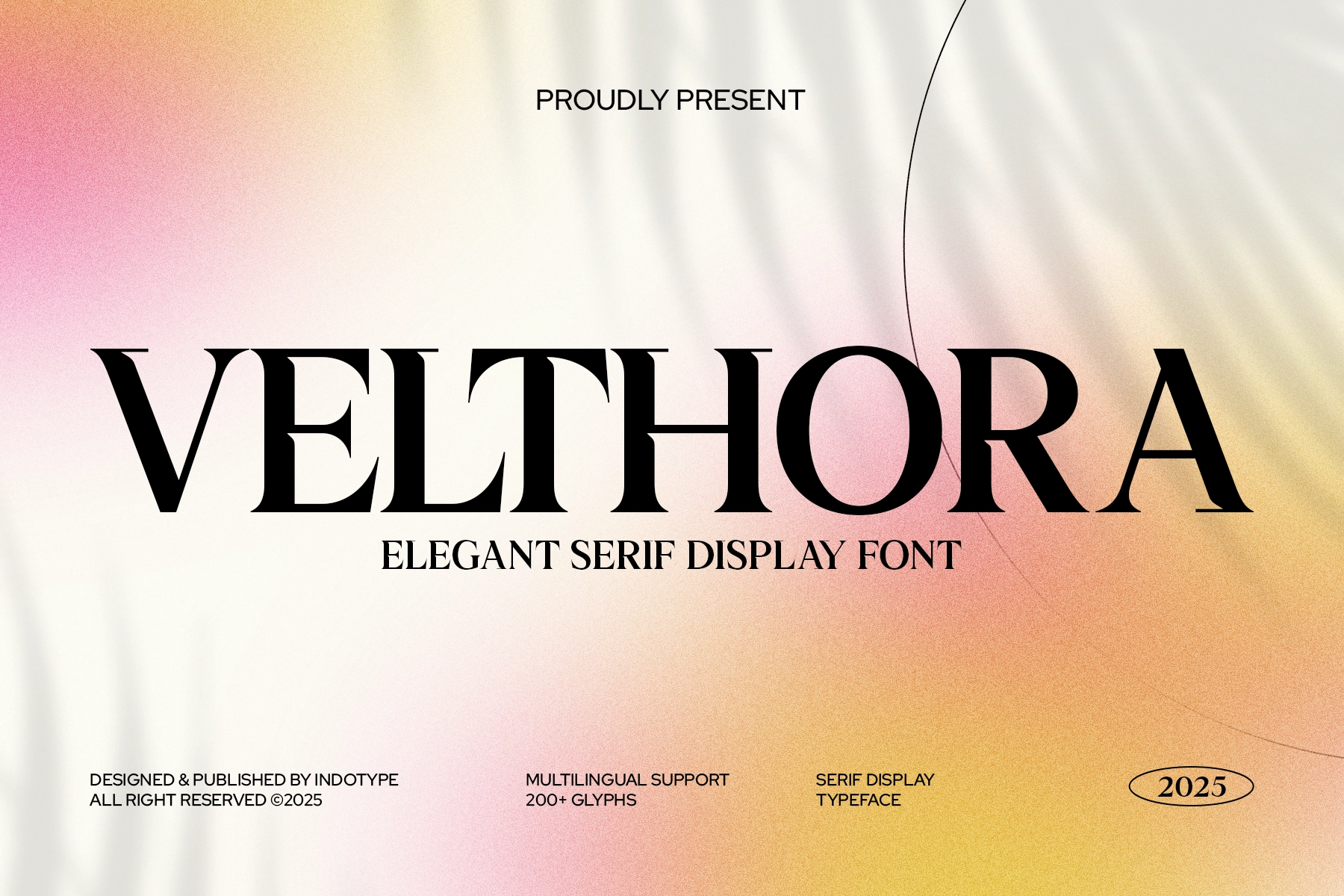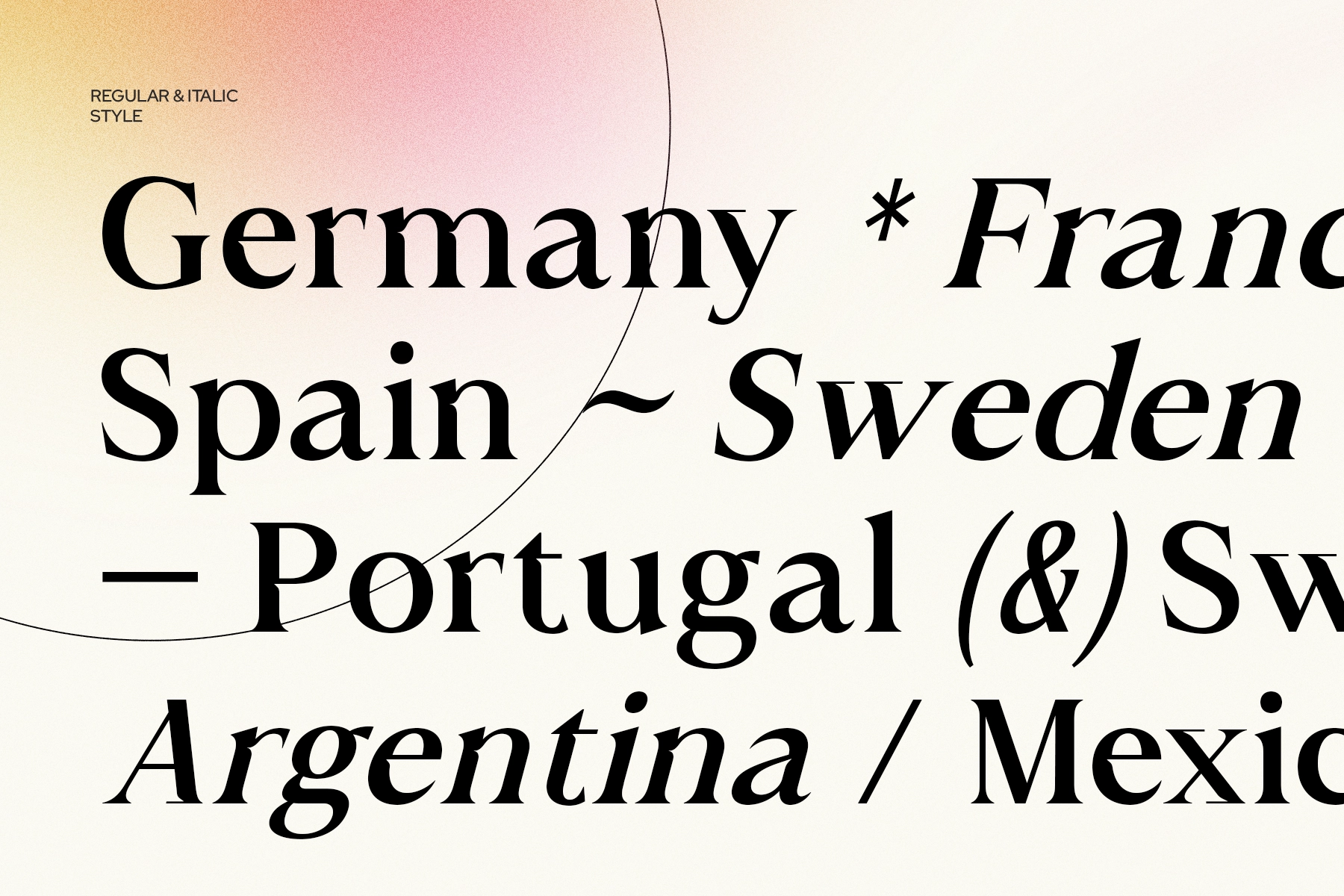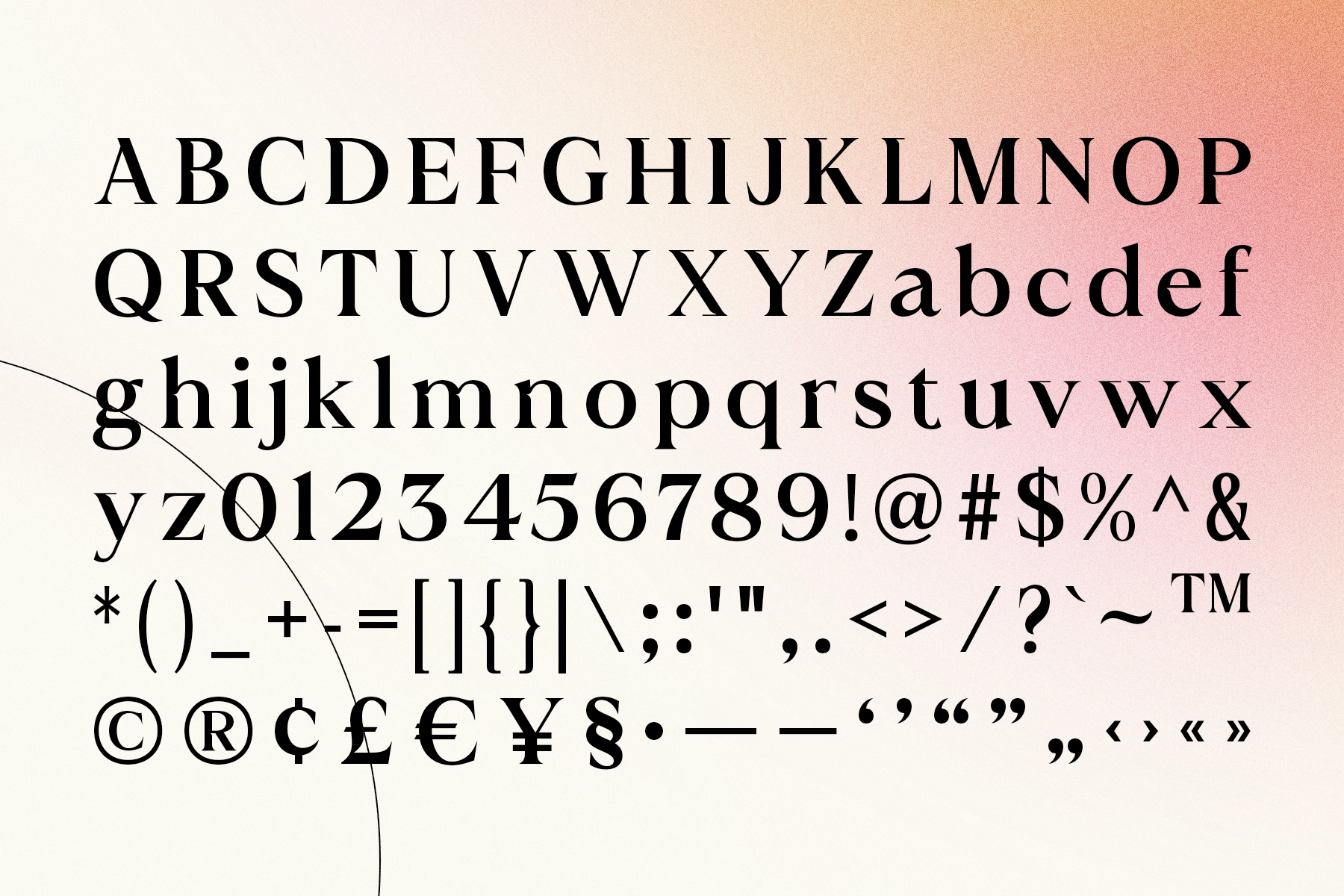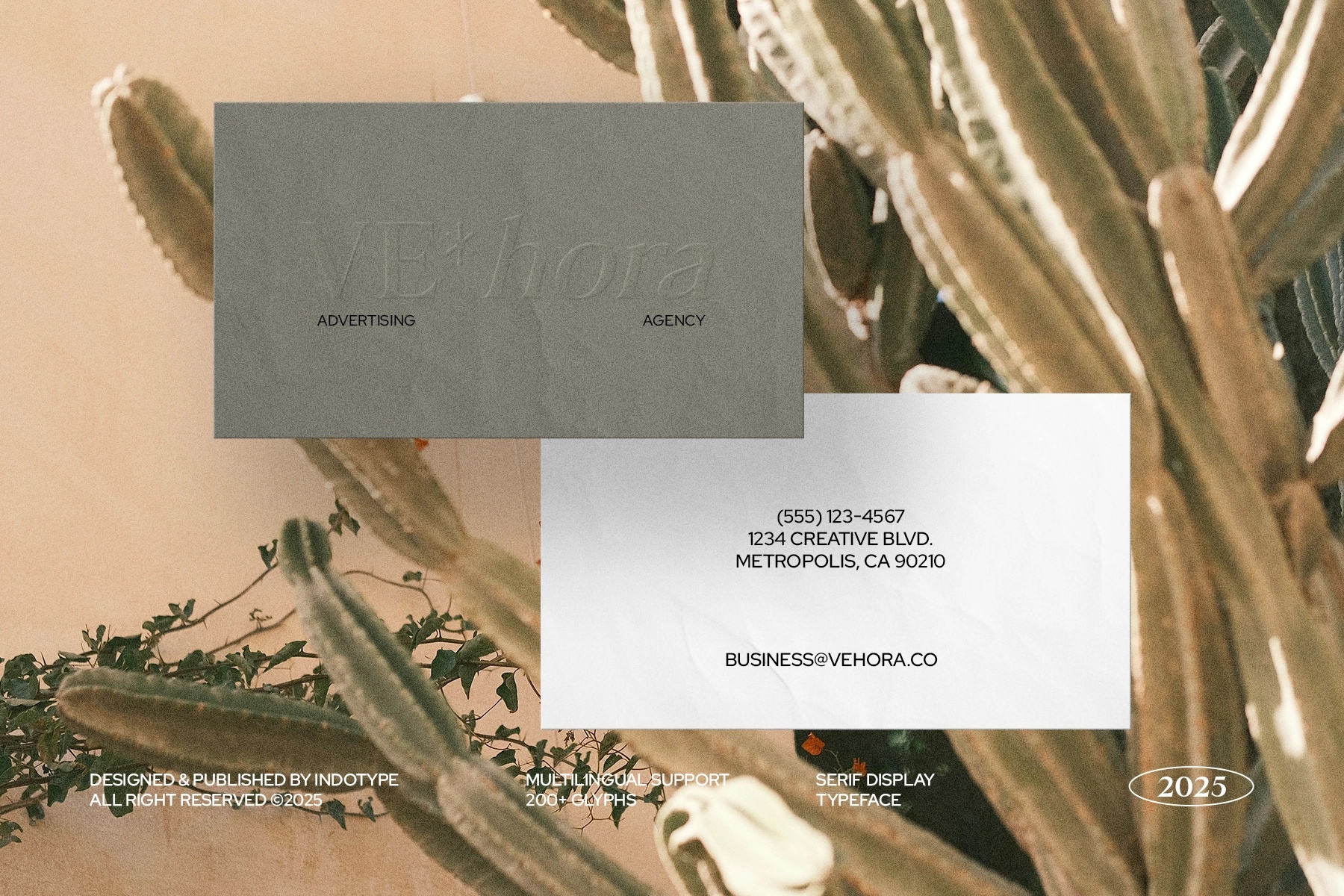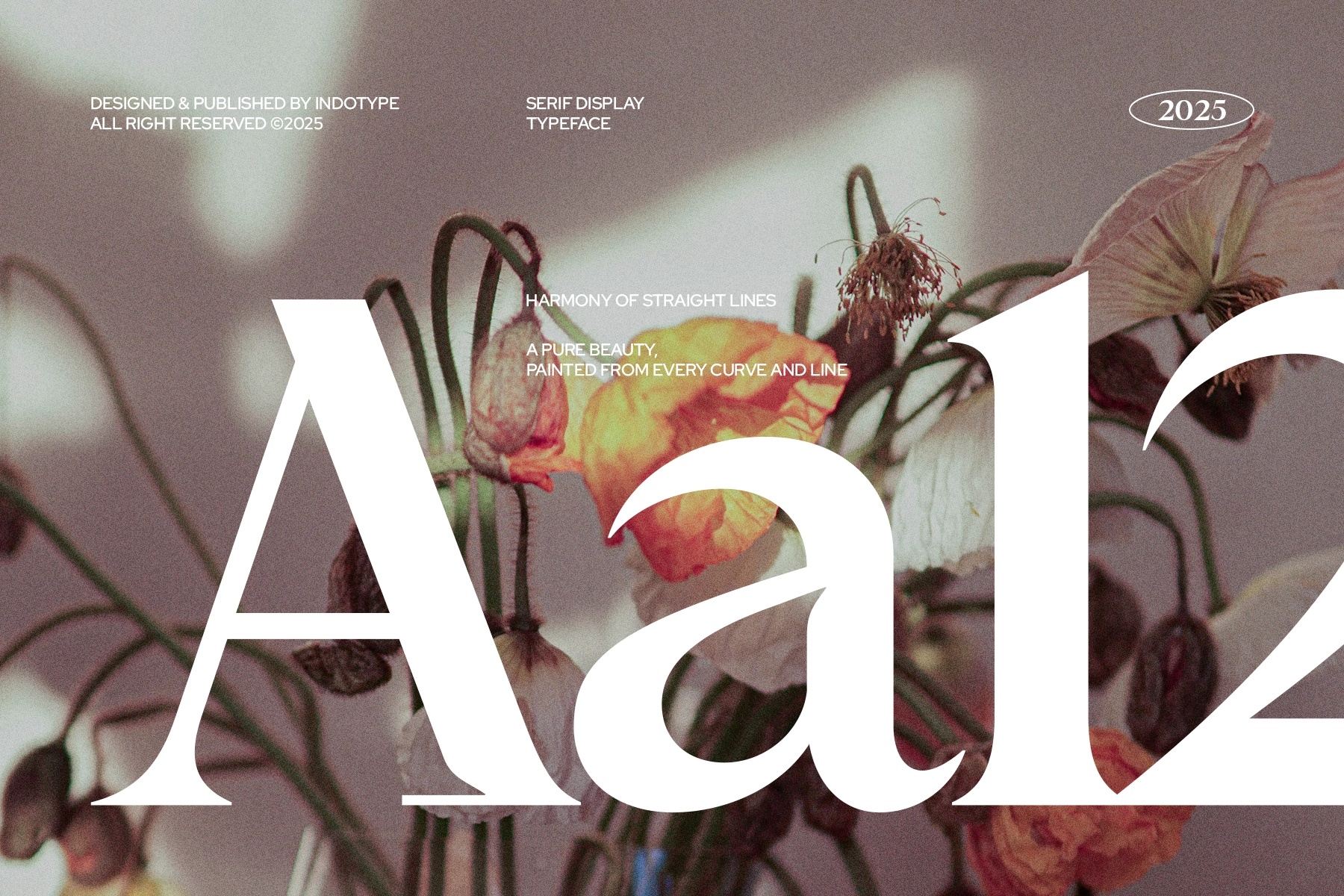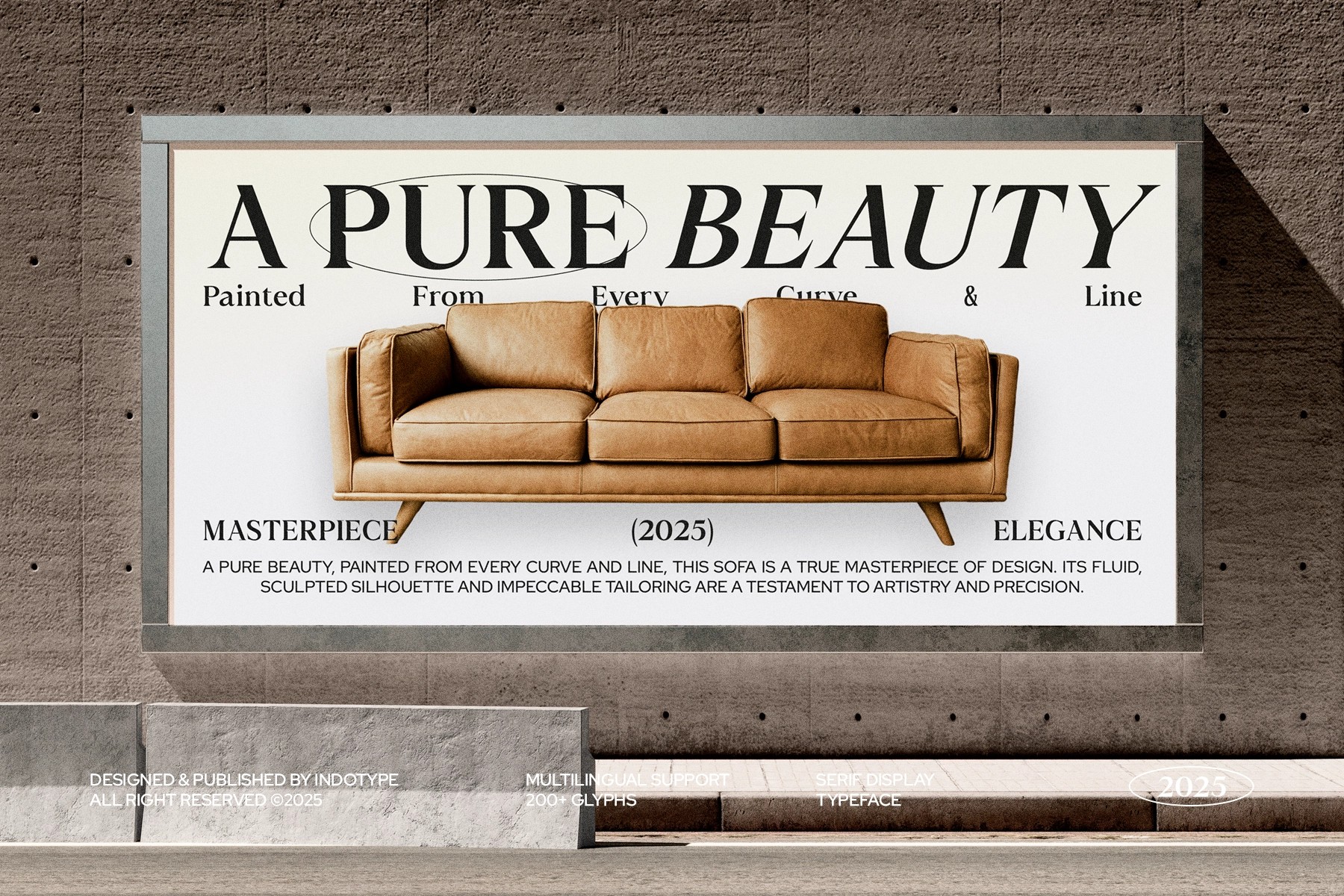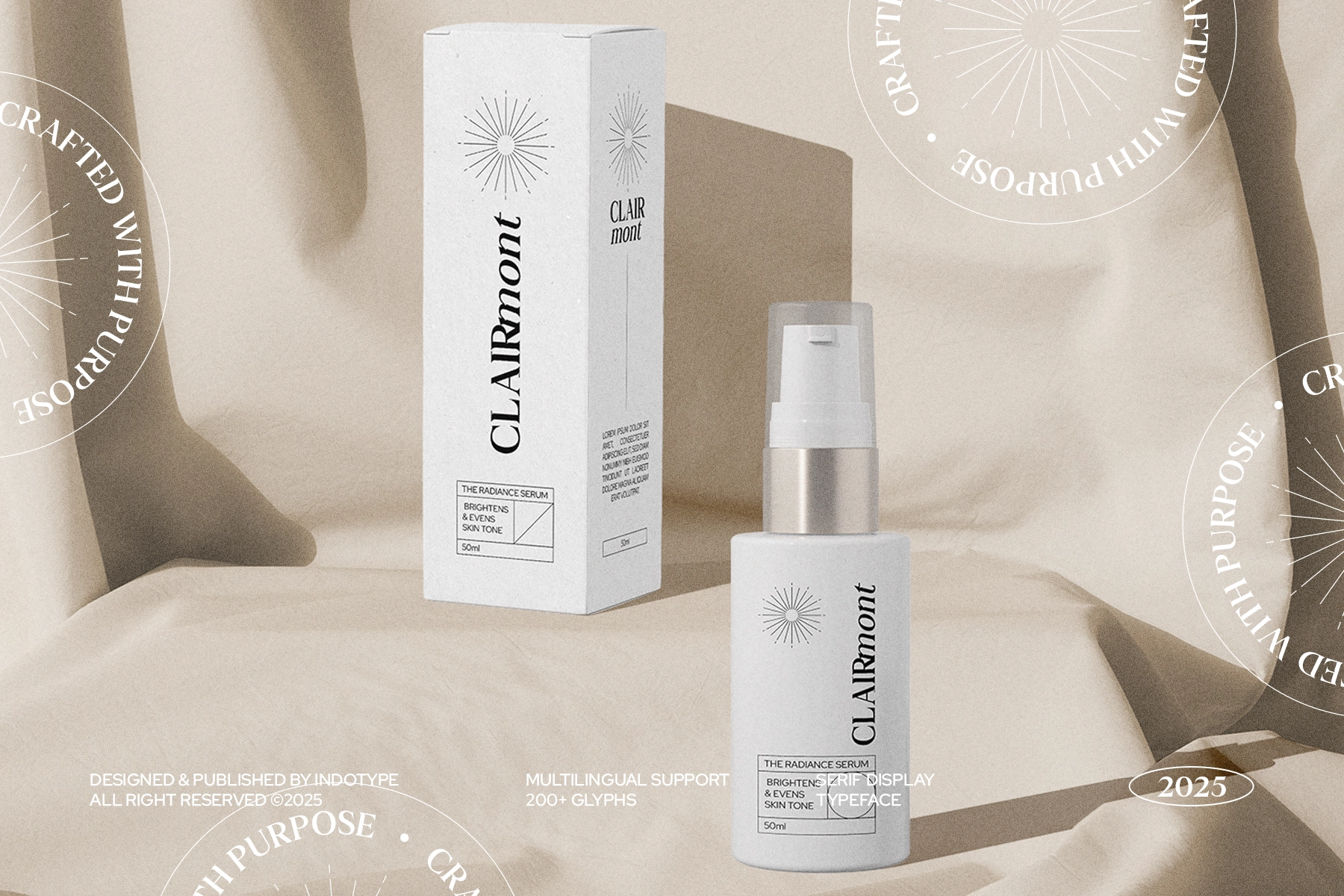
Velthora - Elegant Serif Display Font
This elegant serif display font is shaped for headlines that need poise and clarity in the same breath. High-contrast strokes, fine serifs, and sculpted curves give each letter a polished presence that reads with confidence across posters, covers, branding, and statement-led layouts.
Velthora works beautifully for fashion branding, luxury packaging, editorial spreads, beauty campaigns, invitation design, boutique signage, art direction decks, product labels, album covers, and more. The Regular and Italic styles give the type system a clean range for contrast, while the character set keeps it practical for international projects without losing its sharp visual identity.
- Uppercase & lowercase characters
- Regular & Italic styles
- High-contrast serif design
- 200+ glyphs